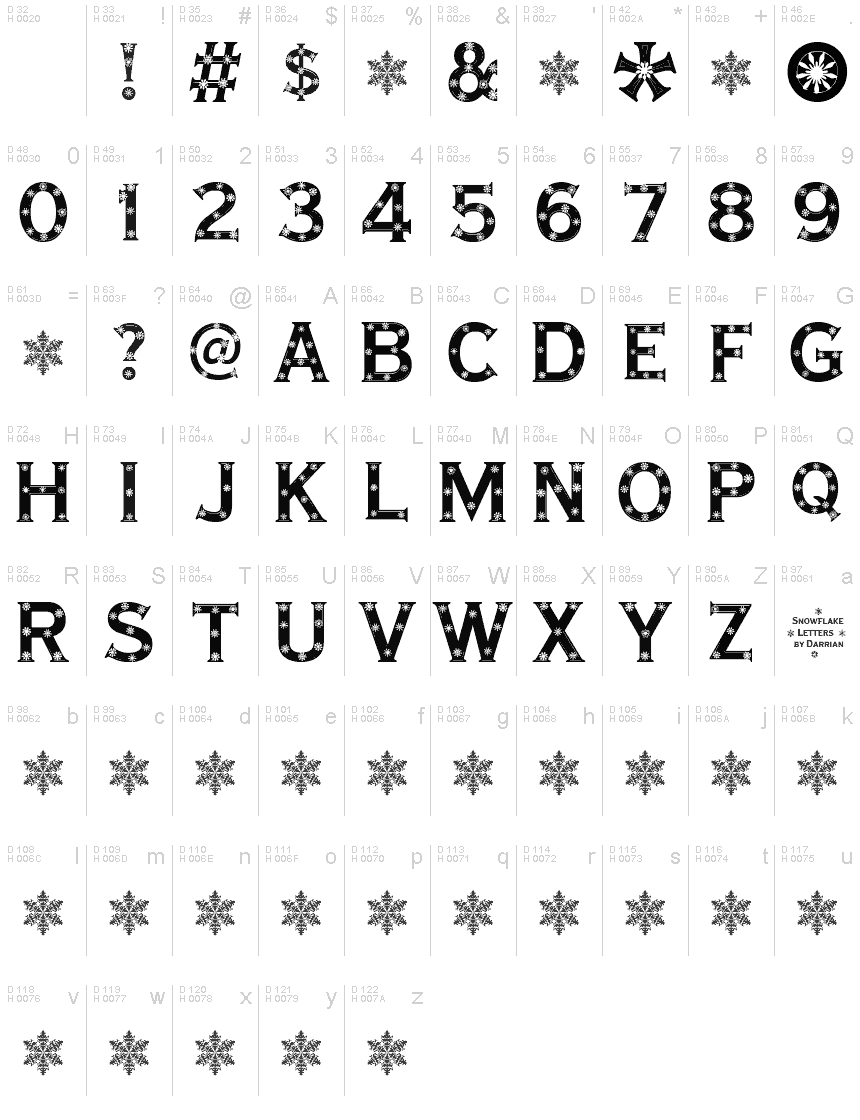
Snowflake Letters
Snowflake Letters, designed by Darrian, presents a captivating blend of whimsy and elegance. This display font boasts an expanded width that commands attention, while its decorative style imbues every character with the enchanting beauty of winter's most delicate emblem—the snowflake. Each letter is carefully adorned with these icy crystals, creating a festive and joyous atmosphere that's perfect for seasonal greetings, winter-themed marketing materials, and any creative project looking to capture the magic of a snowy wonderland.
The aesthetic appeal of Snowflake Letters lies in its intricate detailing. The contrast between the bold strokes and the fine snowflake patterns offers an alluring visual texture that adds depth and interest to text. Versatile in its application yet distinct in personality, this font invites designers to embrace the season's charm in their work—whether it's for holiday cards, event invitations or eye-catching advertising campaigns that require a touch of frosty flair.
Snowflake Letters is not just another decorative typeface; it’s a gateway to crafting visuals that resonate with warmth amidst winter's chill.
The aesthetic appeal of Snowflake Letters lies in its intricate detailing. The contrast between the bold strokes and the fine snowflake patterns offers an alluring visual texture that adds depth and interest to text. Versatile in its application yet distinct in personality, this font invites designers to embrace the season's charm in their work—whether it's for holiday cards, event invitations or eye-catching advertising campaigns that require a touch of frosty flair.
Snowflake Letters is not just another decorative typeface; it’s a gateway to crafting visuals that resonate with warmth amidst winter's chill.